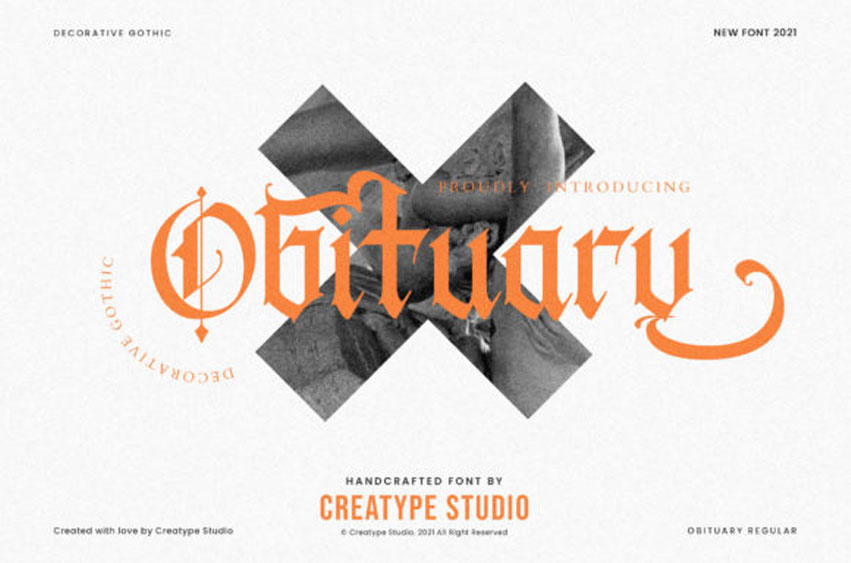
Obituary Font is an elegant and gothic blackletter font created in a clean and trendy style to suit any creative mind! With a unique letter shape, this font is suitable for all your crafty ideas!